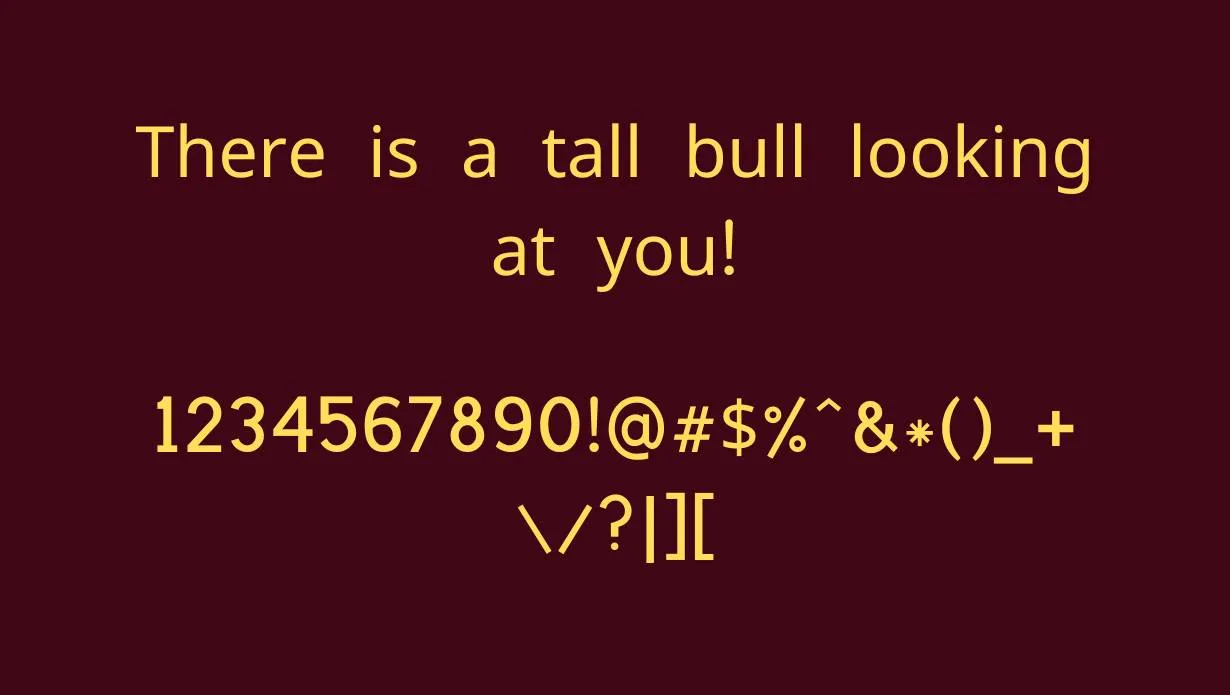
Latha font is a clean and readable typeface that ensures your words are presented with clarity. The letters have a simple design, making them suitable for various applications.
| Name | Latha Font |
| Designer | Raghunath Joshi |
Whether you’re working on a school assignment, a business presentation, or any content that requires easy readability, Latha font provides a dependable option. This font adds a touch of simplicity to your text, ensuring that it is accessible to a wide audience.